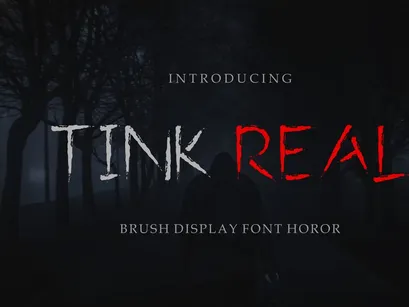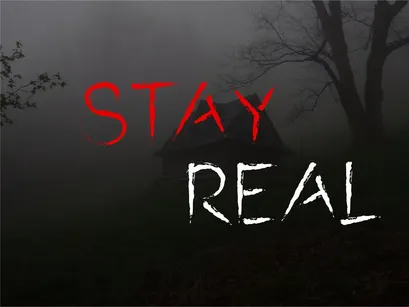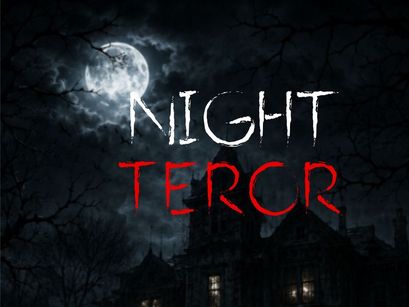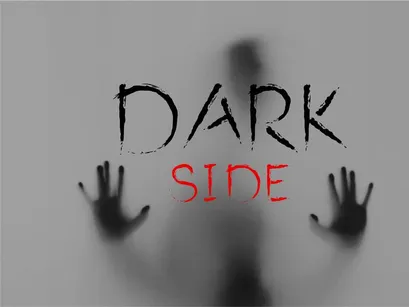
Tink Real – Handwritten Display Font is a bold and expressive handwritten brush font with a raw, rough, and slightly distressed character. Its irregular strokes and energetic texture create a dark, rebellious, and authentic atmosphere, making it especially suitable for horror, thriller, rock, metal, streetwear, and alternative-themed designs.
Tink Real works beautifully for movie posters, album covers, band artwork, merchandise, logos, social media graphics, book covers, event posters, and eye-catching headlines. The strong brush style gives every word a handcrafted feel while maintaining a powerful and memorable visual impact.
Perfect for designers looking for a dramatic handwritten display font that feels edgy, mysterious, artistic, and unapologetically bold.